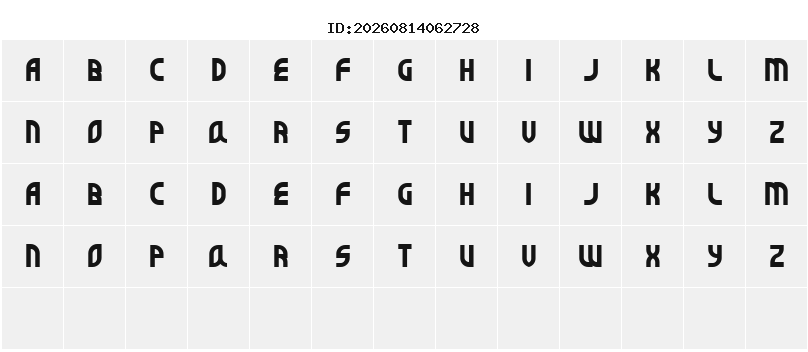
SuperBefok Preview
• Font Name: SuperBefok
• Full Font Name: SuperBefok
• Version: Version 1.00 2006 initial release
• PostScript Name: SuperBefok
• Designer: Derek Clark
• Manufacturer: defaulterror
• Description: 2006. Designed for the defaulterror type foundry.
About SuperBefok.ttf
SuperBefok.ttf is a modern, elegant sans-serif font designed for ultimate readability and visual harmony. Perfect for branding, headlines, web design, and print materials.